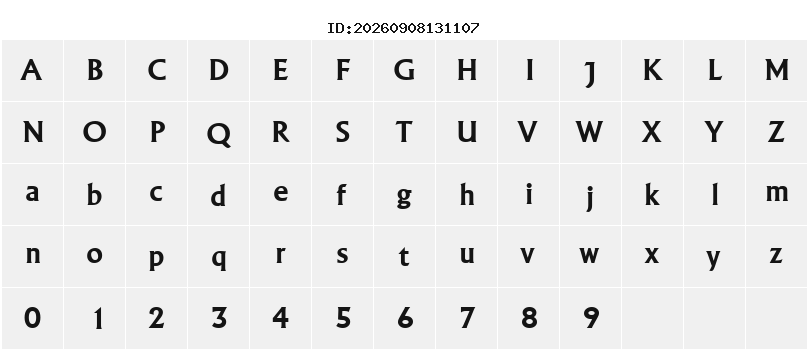
URWAlbireoTDemBol Preview
• Font Name: URWAlbireoTDemBol
• Full Font Name: URWAlbireoTDemBol
• PostScript Name: URWAlbireoT-DemiBold
About URWAlbireoTDemBol.ttf
URWAlbireoTDemBol.ttf is a modern, elegant sans-serif font designed for ultimate readability and visual harmony. Perfect for branding, headlines, web design, and print materials.